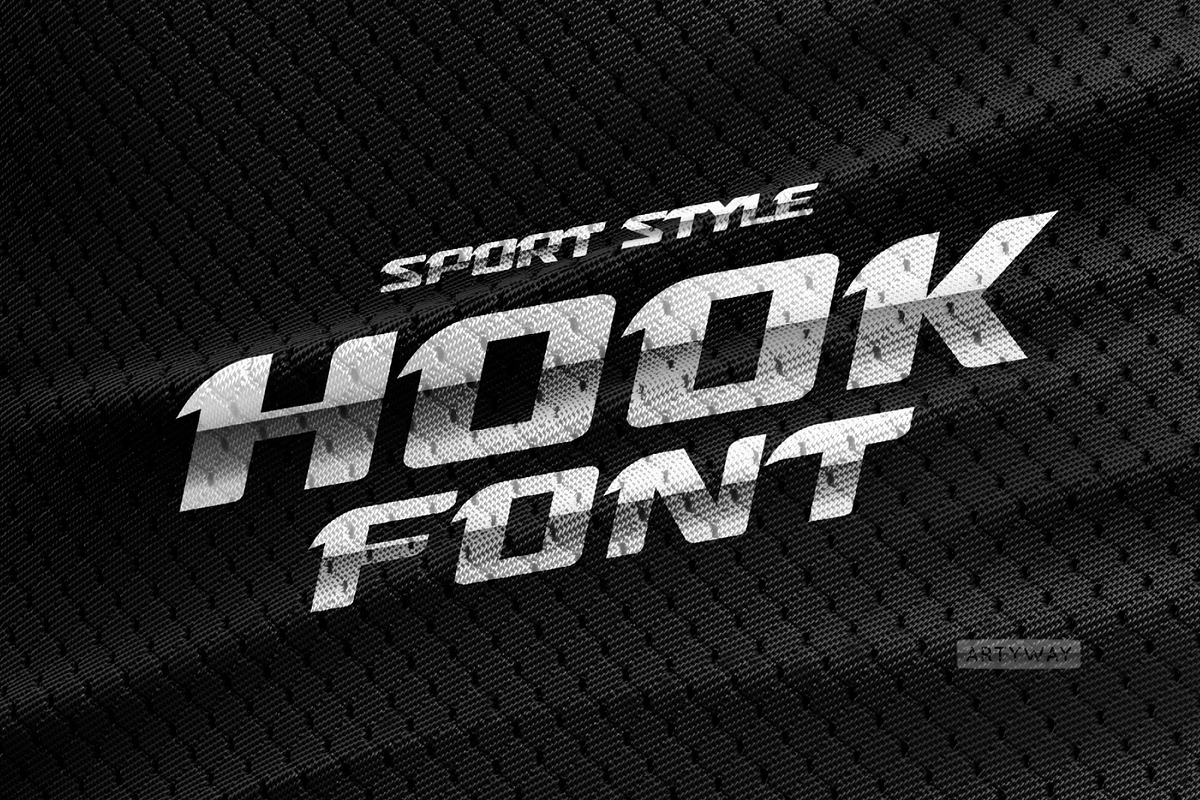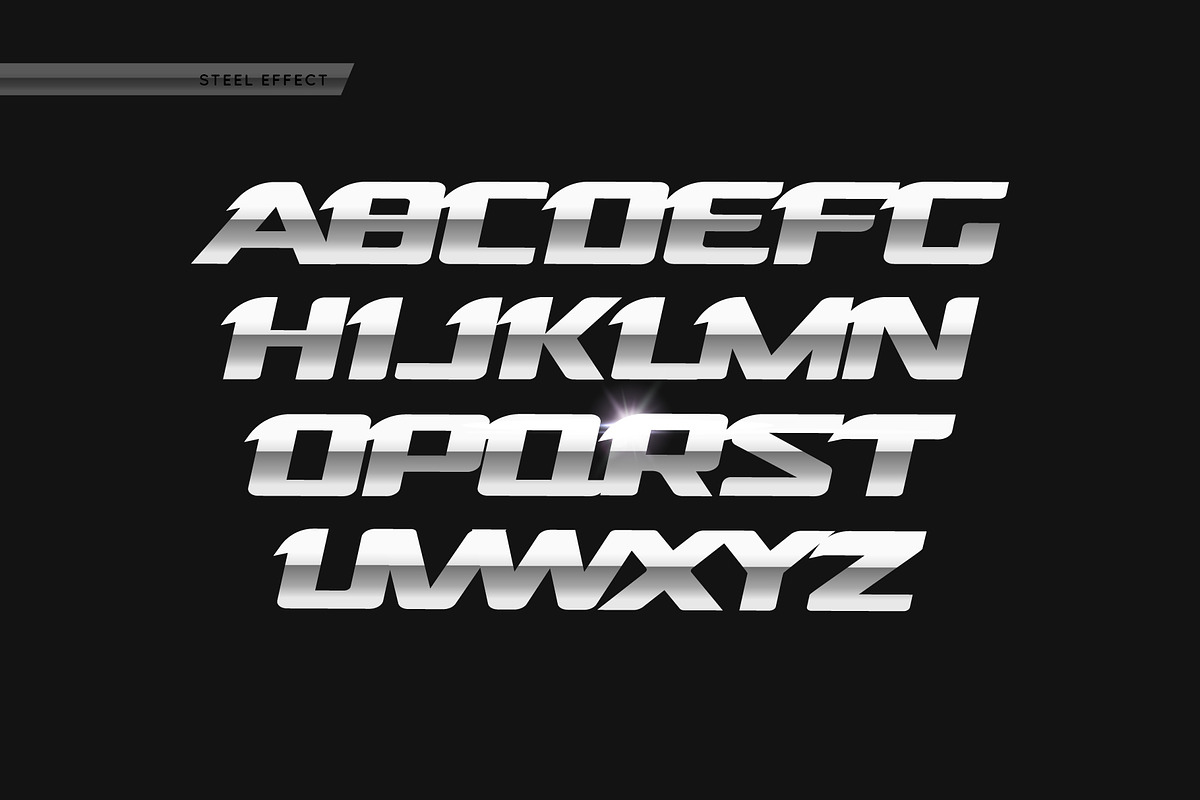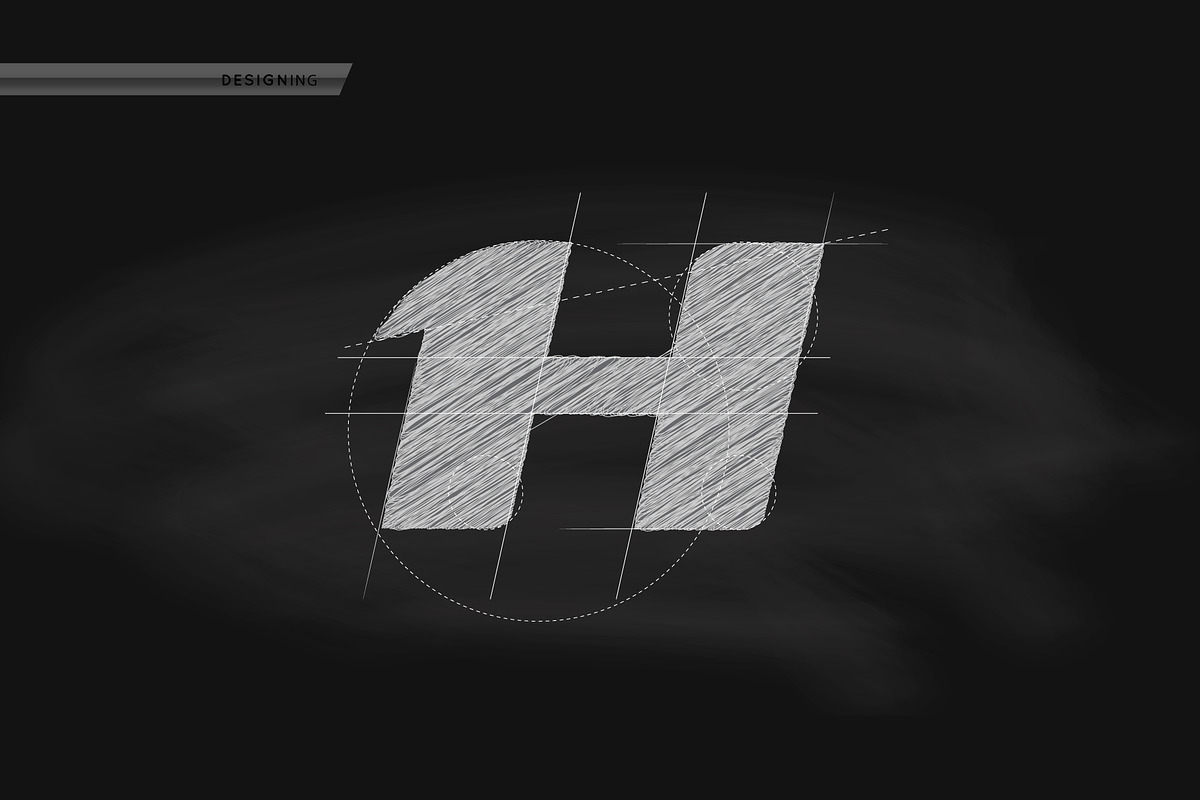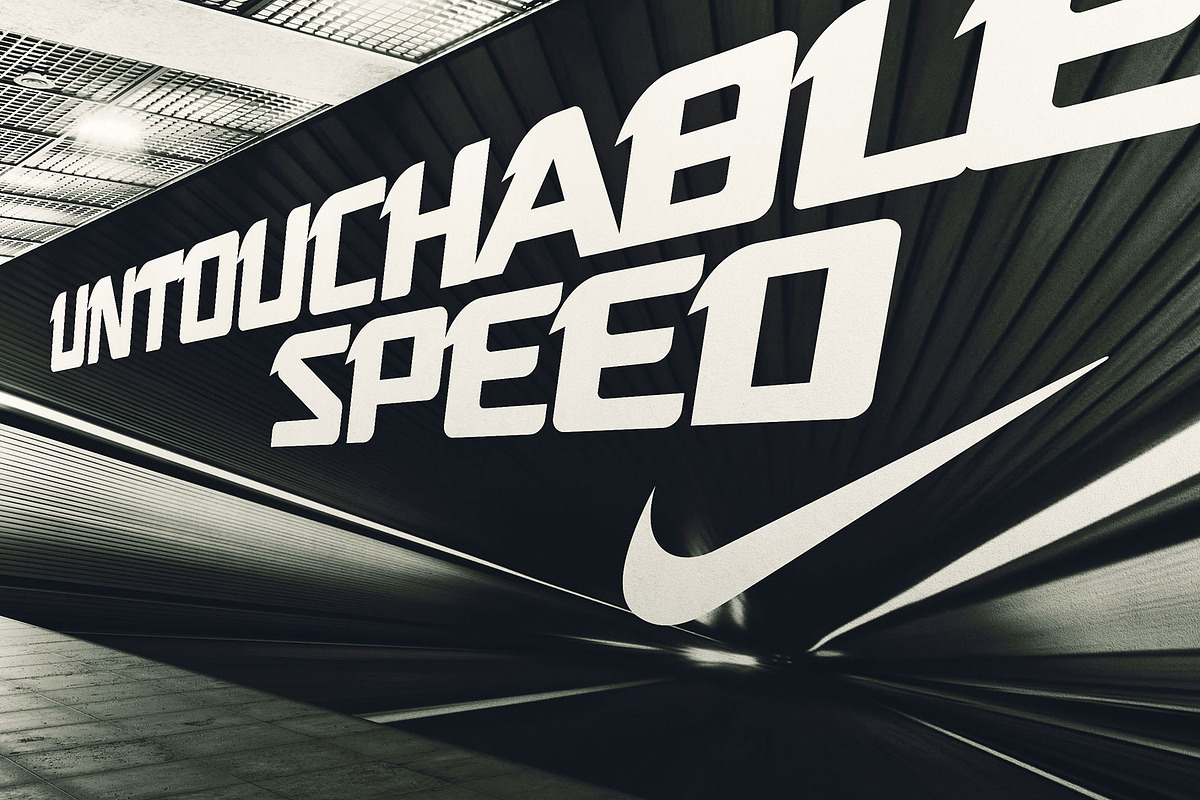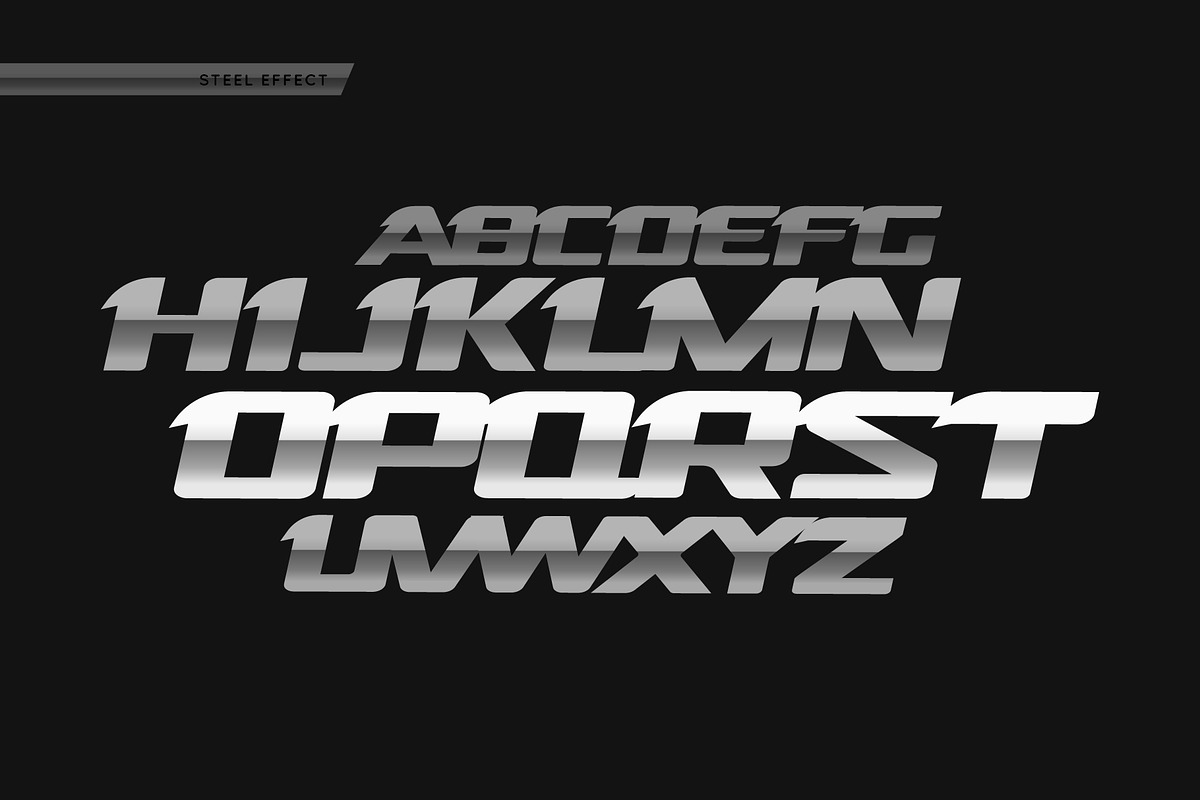
Superhero font
I suggest you to pay attention to the "Hook" font.
Revolutionary design with rounded sharp corners and some slope for dynamic effect. "Hook" font has a unique charm and easy visual readability, so it's perfect for headlines, whether for sports events, gym or automotive posters, logo or monograms designs.